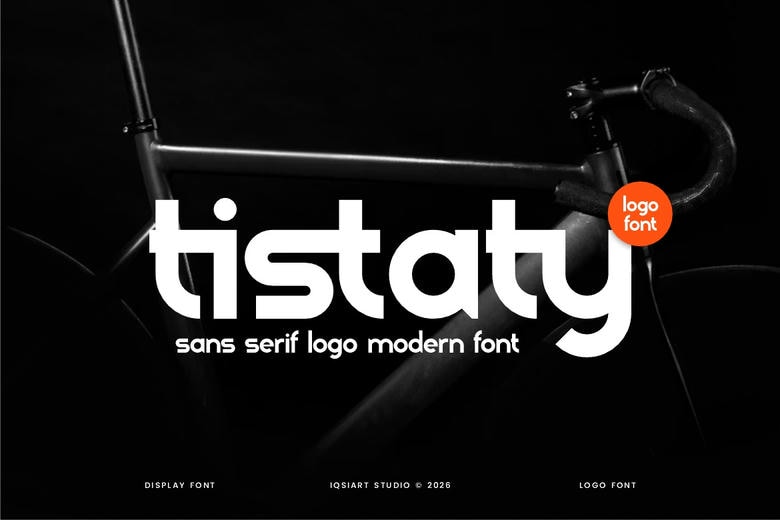
Tistaty Font
Tistaty is a bold and authentic display typeface for a variety of design needs. We have a large variety of themes and font styles – check out our profile to see more and see the perfect style for your project.
Tistaty Sans Serif Font